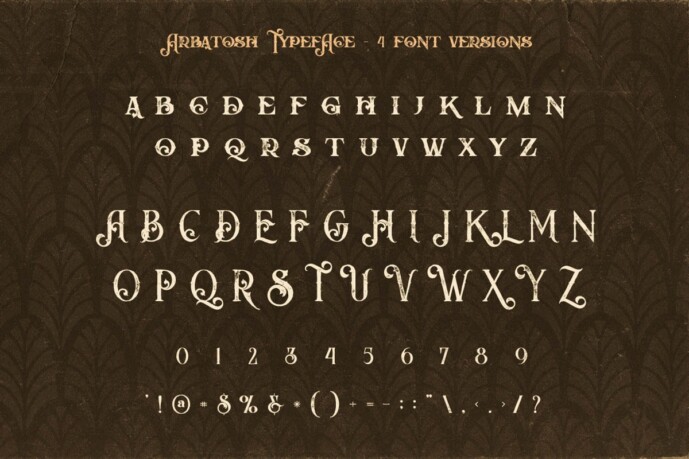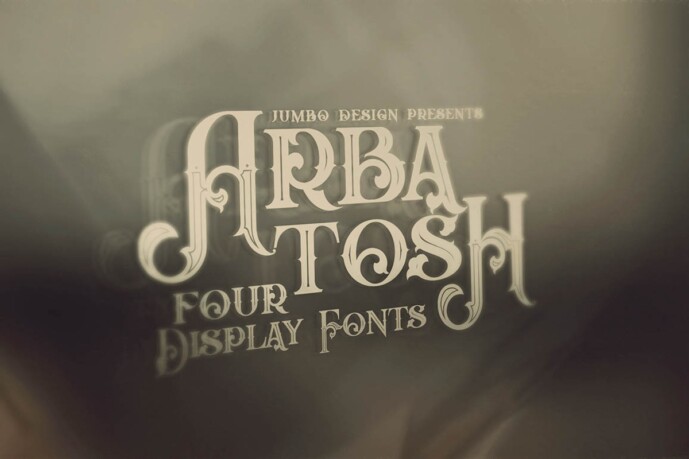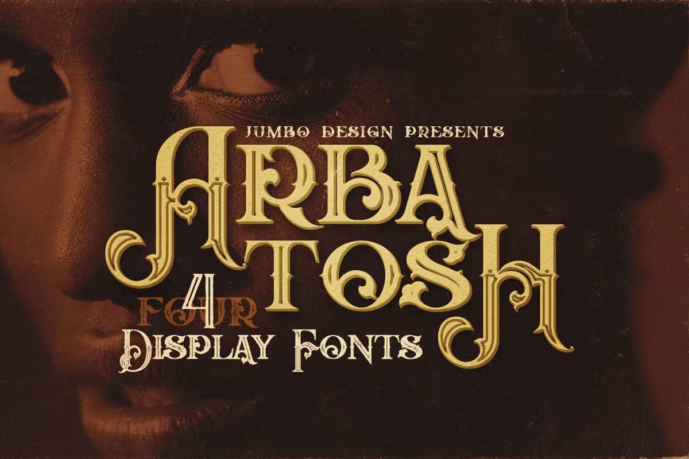
Arbatosh Font
Designer: JumboDesign
Arbatosh Font, unique vintage & ornamental style custom serif font with 4 styles: regular and grunge, inline and inline grunge.